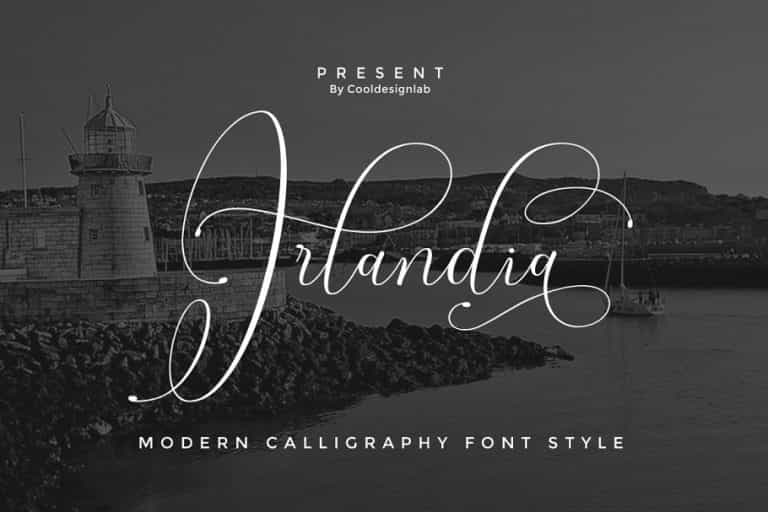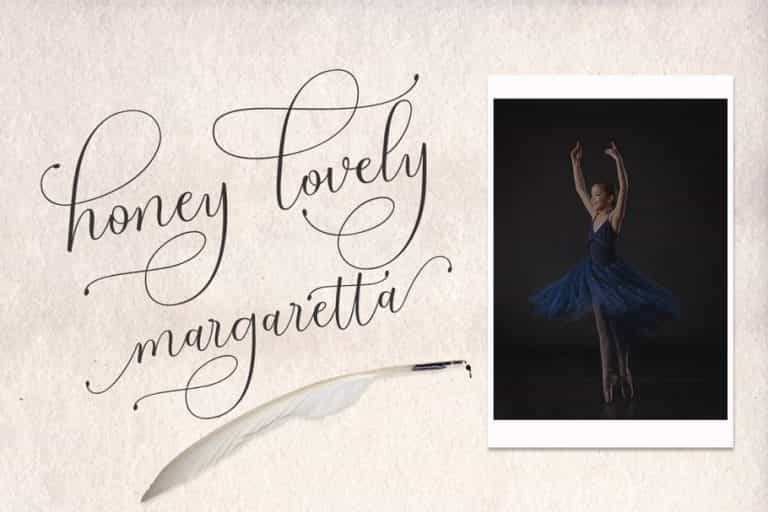
Say hello to Irlandia font. It’s so simple, but it has a very luxurious taste in it. This font is a lowercase alternative, very similar to a pen in handwriting, for example, owners use it, signatures, logos, watermark photos, and many more. You can type the name you want below to try it first. Irlandia Script Font is a fresh handwritten script with many stylistic sets and alternative choices to choose from.